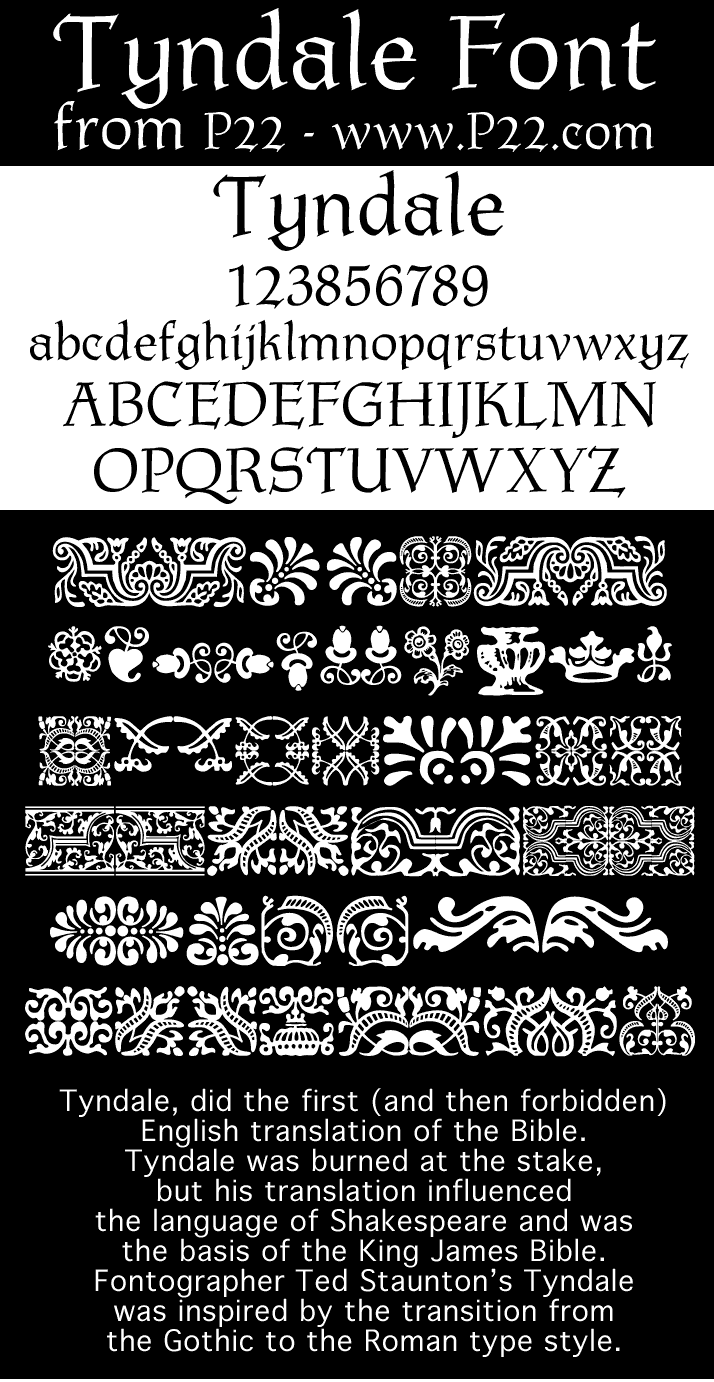
What is the p22 tyndale™ font? This is the main font we use throughout most of marketing. P22 tyndale p22 tyndale font:
Designed By Ted Staunton In 2008 Up To 2 Typefaces / 1 Value Packs.